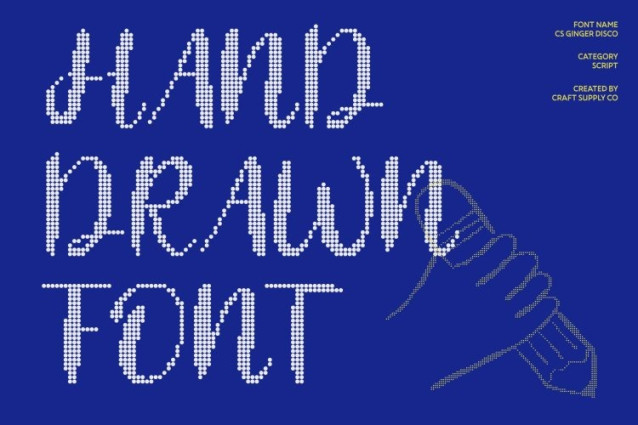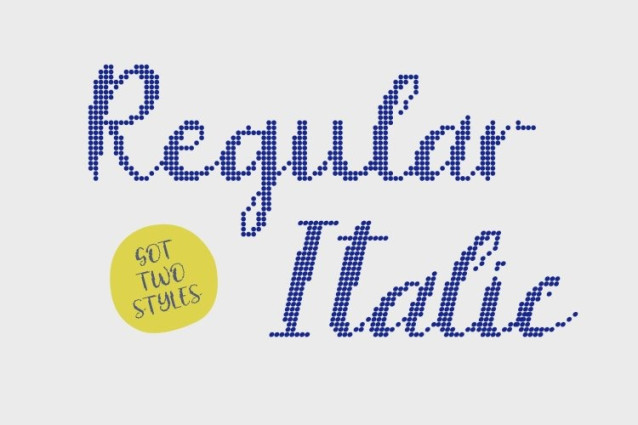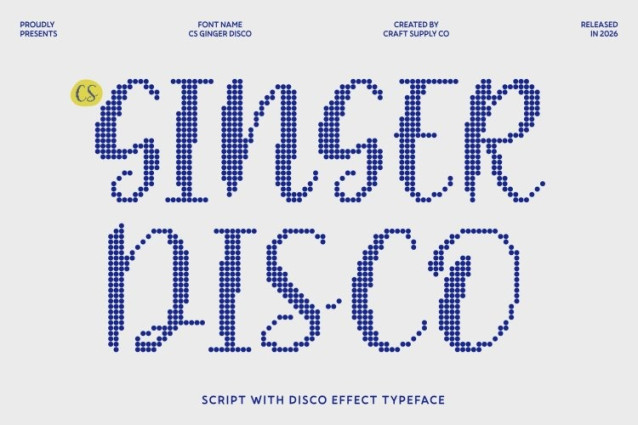
CS Ginger Disco Font – This is a Mediterranean script font inspired by sun-soaked coastlines, open-air cafés, and the joyful rhythm of summer nights. Blending relaxed handwritten flow with a hint of disco-style cheerfulness, this font captures warmth, brightness, and effortless charm.
Soft Curves with Sunny, Lively Personality
The letterforms feature gentle curves and fluid connections that mirror the easygoing pace of Mediterranean living enhanced by a lively, upbeat energy. Each character flows naturally, creating a rhythmic movement that feels warm, optimistic, and full of life. This sunny personality adds joy and visual sparkle, making text feel welcoming, expressive, and emotionally uplifting.
Relaxed Script Style with Festive Summer Energy
With its casual elegance and handwritten authenticity, this font is perfect for expressive storytelling rooted in lifestyle, travel, and celebration. The relaxed script style carries a subtle festive vibe, evoking summer evenings, music-filled gatherings, and joyful moments by the sea. It adds a human, heartfelt touch that feels genuine and full of positive energy.